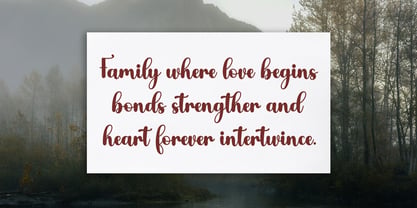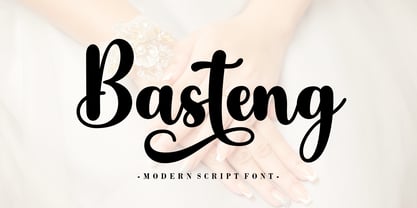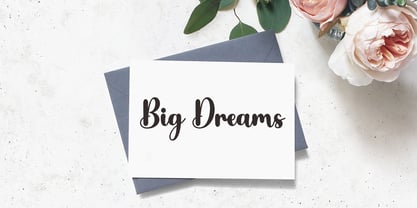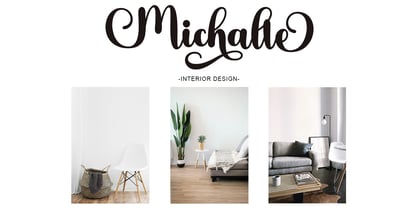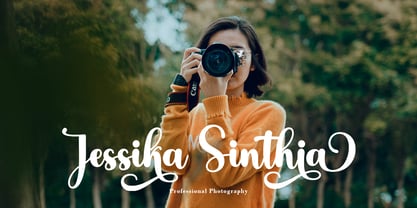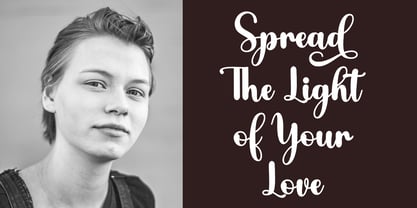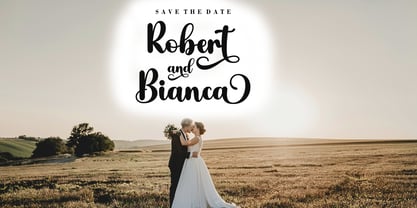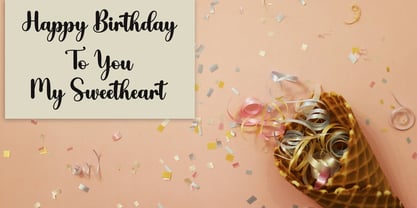
Basteng Script
The Basteng Script Font Family was designed by Agus Pujiyono and published by Good Design. Basteng Script contains 1 styles. More about this family
Basteng Script is perfect for any titles, logo, product packaging, branding project, megazine, social media, wedding, or just used to express words above the background.